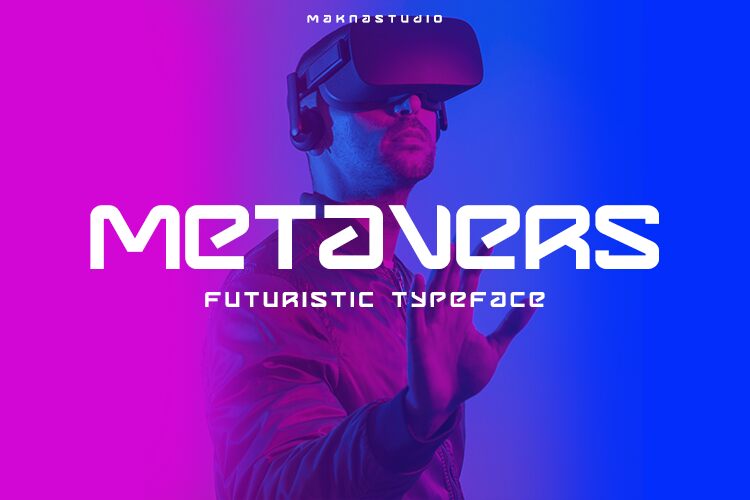
Metavers
Metavers, the brainchild of visionary designer MaknaStudio, is a captivating display font that transcends the boundaries of time and space. With its futuristic allure and expanded width, this font breathes life into any project seeking to convey innovation and cutting-edge concepts. Metavers is perfect for crafting attention-grabbing logos, eye-catching headlines, and immersive website designs. It dares to defy convention, making it an ideal choice for sci-fi movie posters or video game titles. Let Metavers transport your audience into a world where possibilities are limitless and creativity knows no bounds.